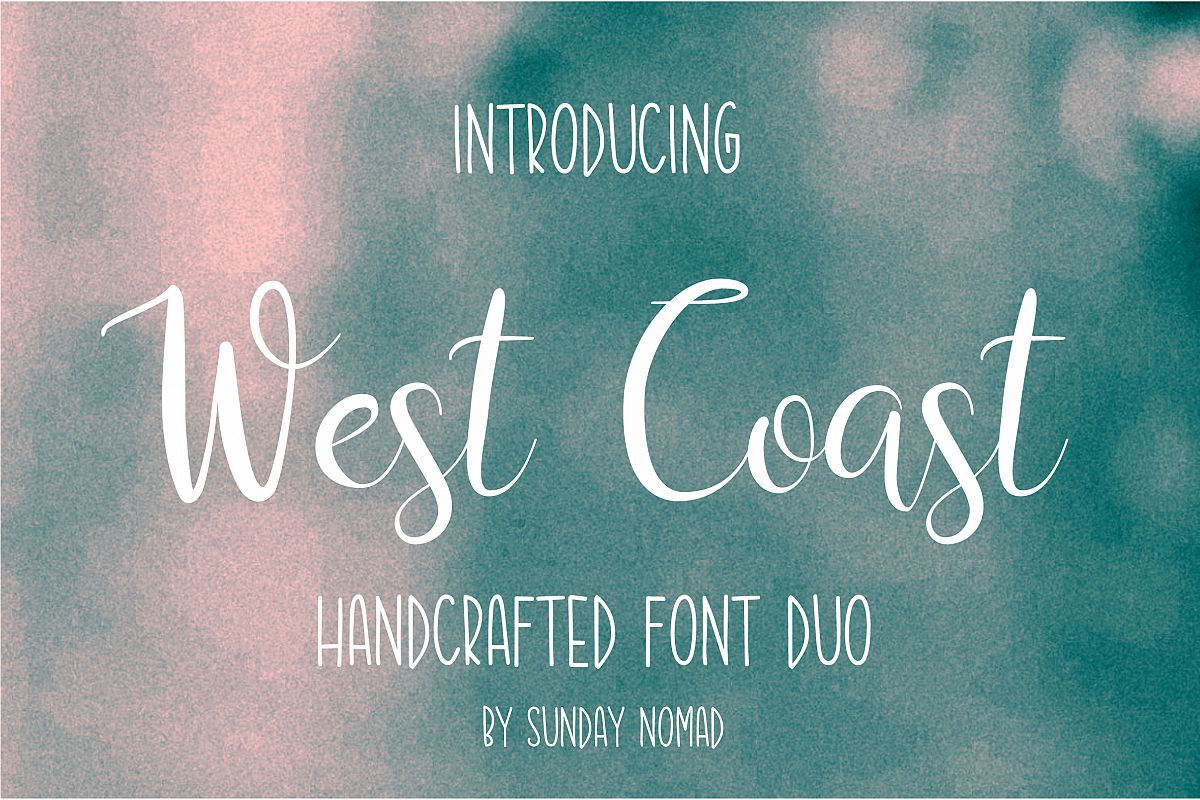
West Coast
West Coast is a new handwritten font duo! West Coast Script - a romantic caligraphic style font complimented by  West Coast - handwritten and not perfect.
The fonts are perfect for invitations, branding, packaging design and a lot more!
Both fonts include multilingual characters , and some ligatures.